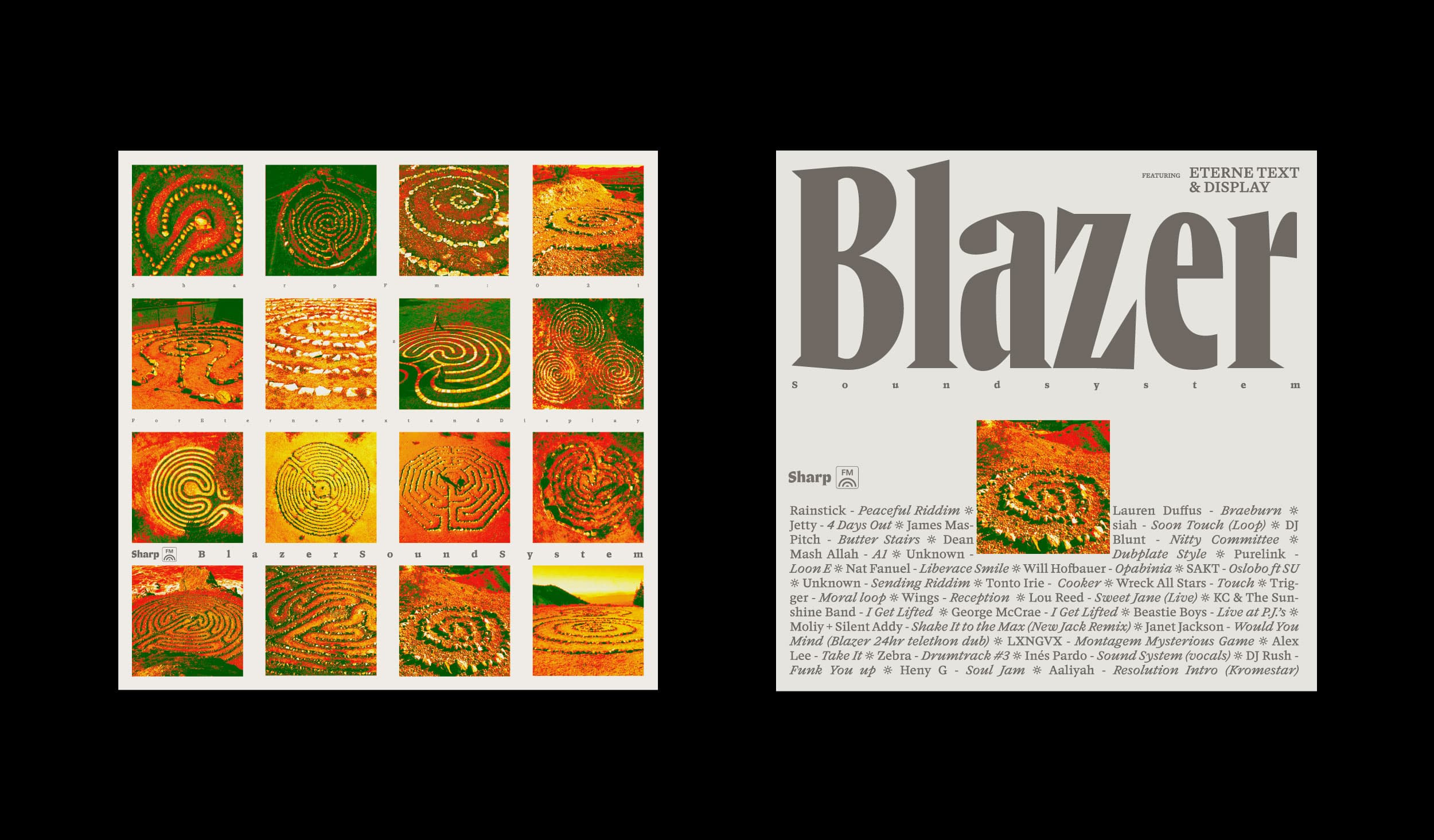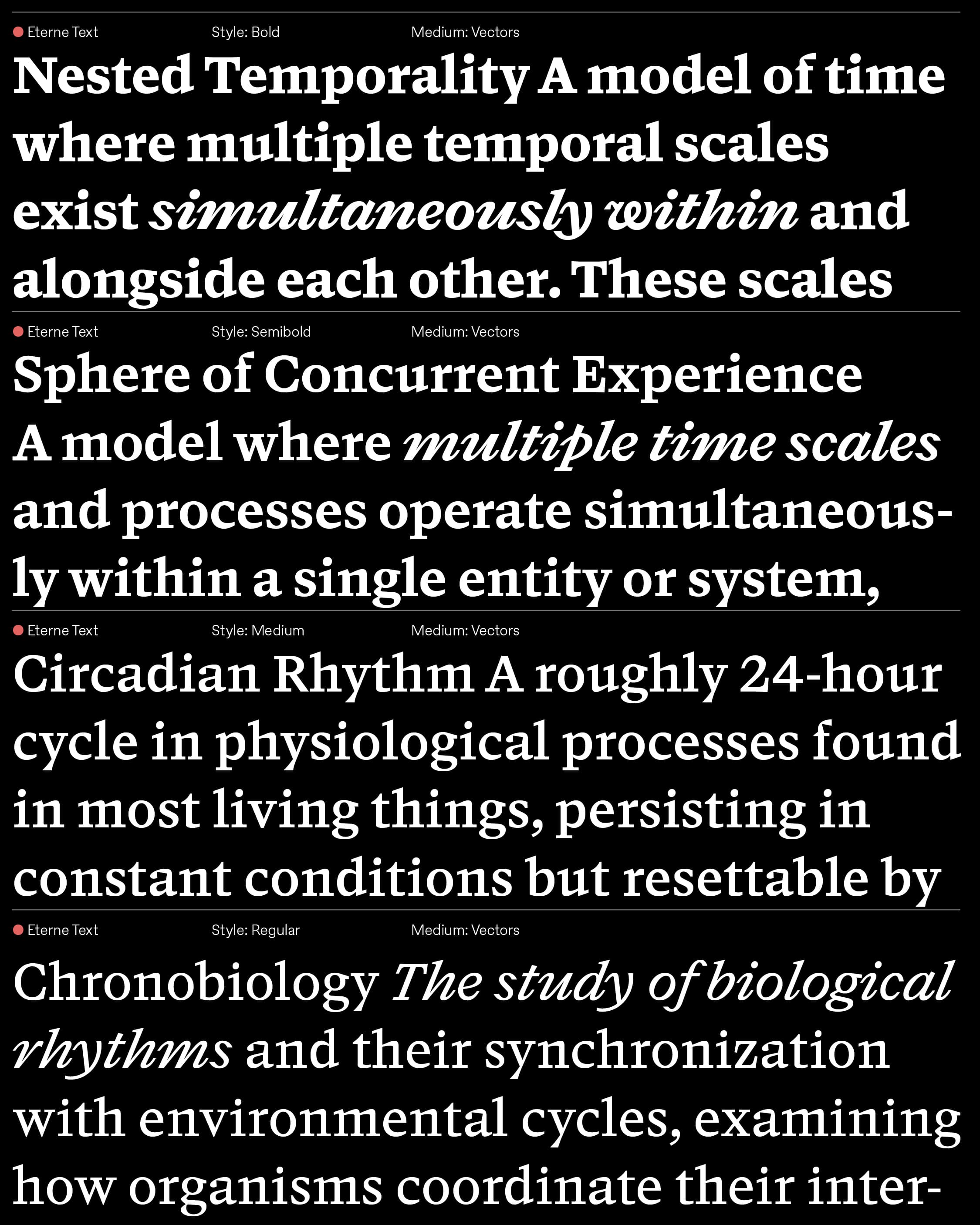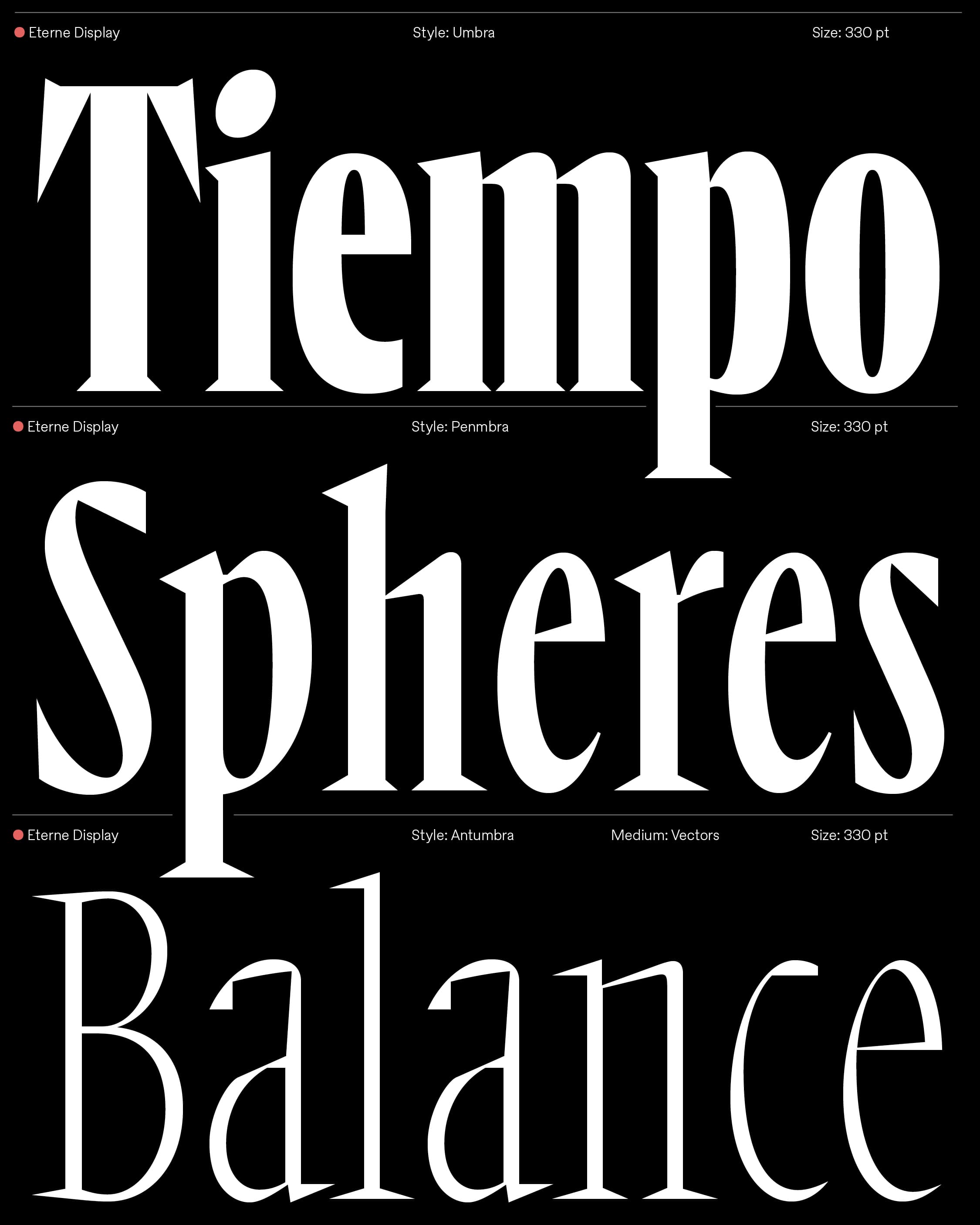
“This is a NYC springtime mix, defrosting from interior emotional space, out to the street, the b-ball courts, the club, n2 tha night…” -Blazer Sound System
Distinctive rhythms, unexpected cuts, inventive homage... these dovetailing descriptions define our latest typeface Eterne, and our latest mix by our friends Rainstick and Zebra Blood, who are known together as Blazer Sound System. Full of air and light, you'll also encounter bass tones that go deeper than the Marianas—holding opposites together with seasoned legerdemain is a magical Blazer signature.
Eterne is our first release with London-based designer Kia Tasbighou. Dynamic, dramatic, and dense with detail, Eterne's has an uncommon economy of design that enlivens its typographic energy. As a self-taught type designer, Kia describes his approach as “designating space for a unity between unconventional forms and utility.” Eterne is no exception, and it marks an evolution. Brusque geometric forms and nervy angles belie its high-function quotient—the magic is real.
On this mix, original productions by Rainstick and Zebra Blood commingle with exclusive Janet and Aaliyah edits, Brazilian phonk by way of Khazakhstan, and an anchoring roster of past and future UK club legends. Good for a long day's journey into night, be it a solo flight or taken in communion. This one's been incubating for over a year, and you know what they say about things of quality..."